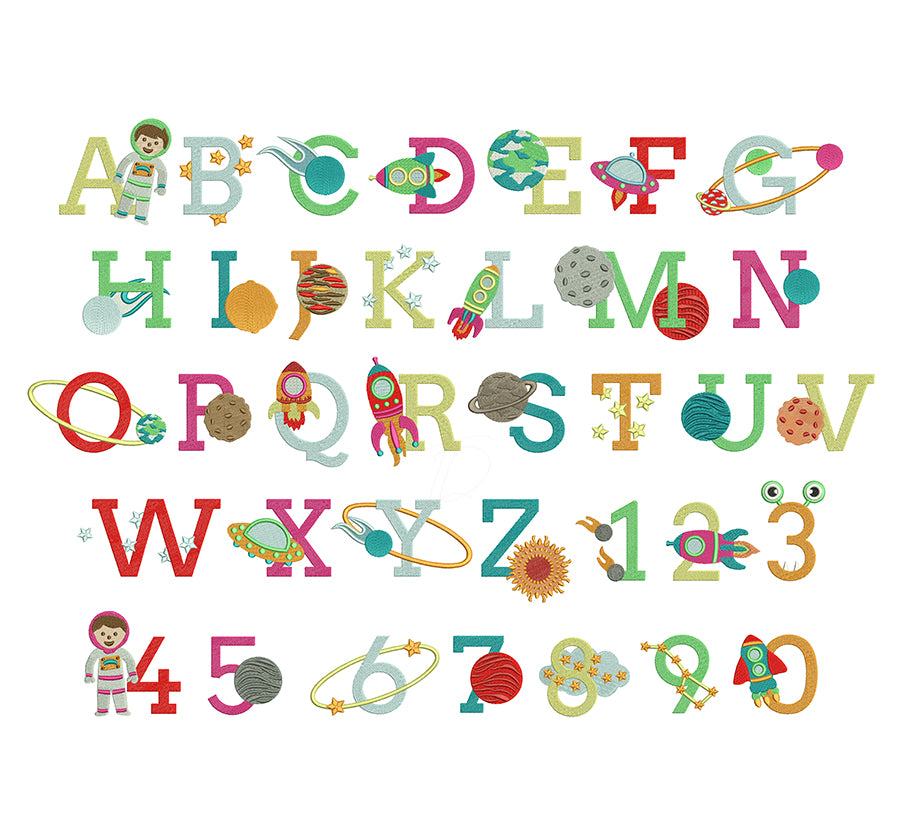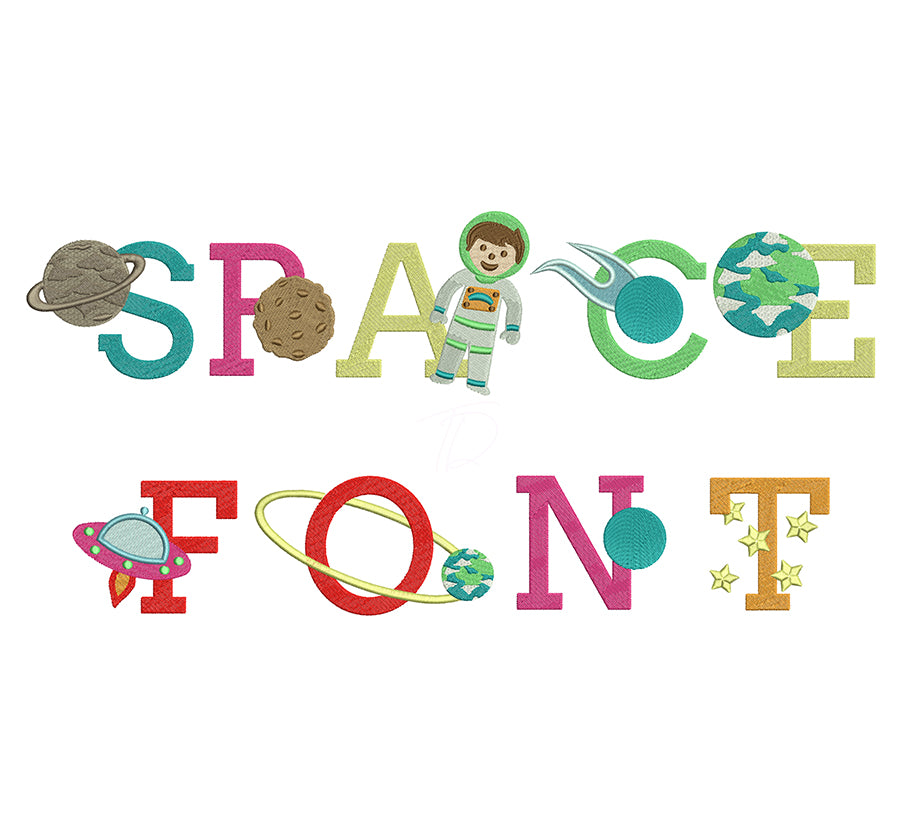
Outer Space Baby Embroidery Font
Blast off into adorable with our Outer Space Baby Embroidery Font — a whimsical machine embroidery font designed especially for little ones! 🚀🌙⭐
Perfect for personalizing baby onesies, bibs, blankets, nursery décor, and more. This font features playful, rounded letterforms with a fun outer space theme that's sure to delight.
- Optimized for small sizes — ideal for baby and toddler items